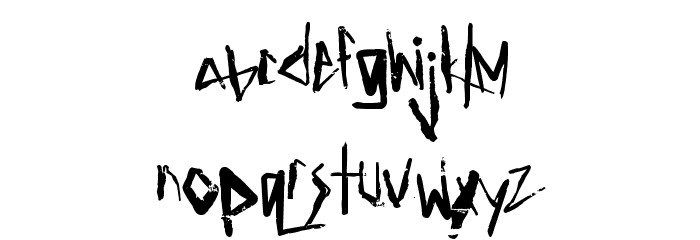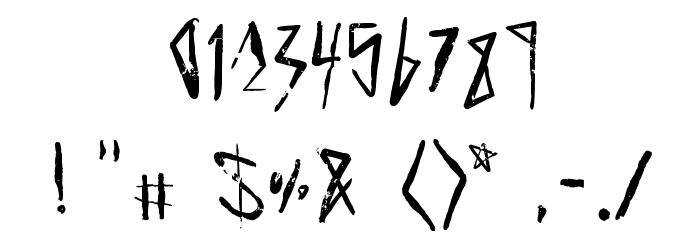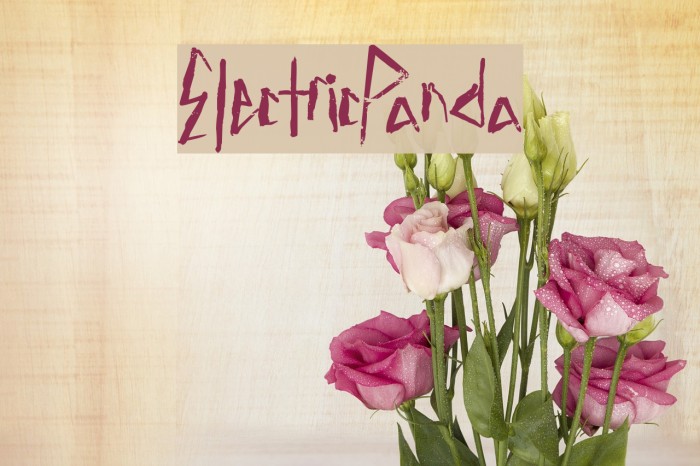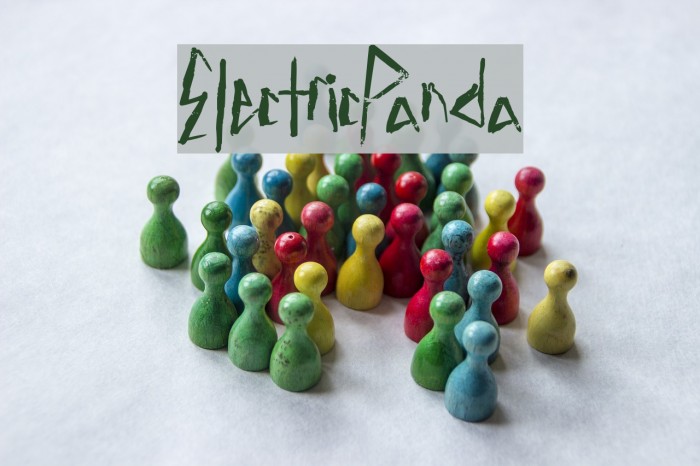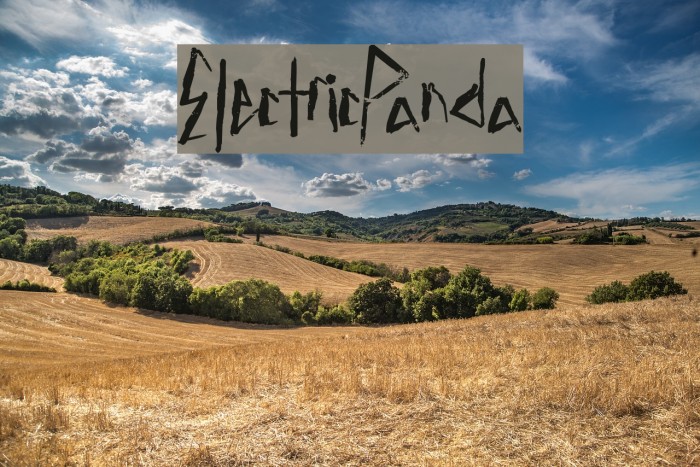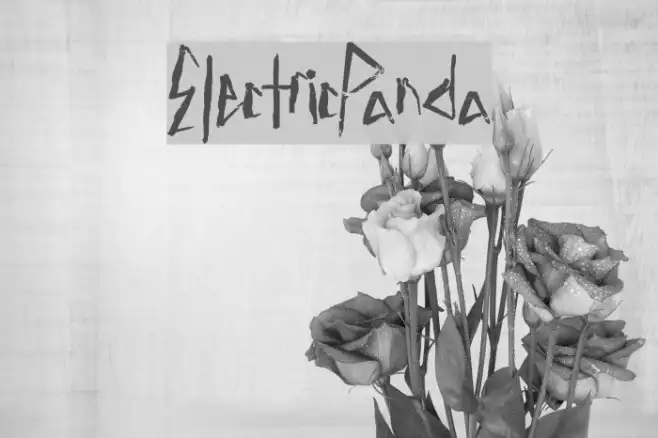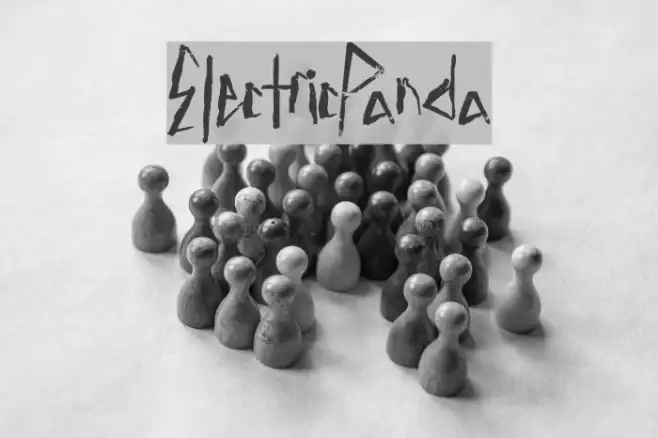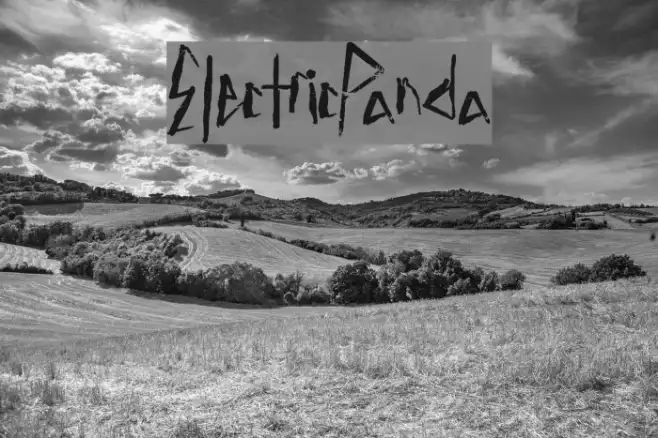
ElectricPanda Font
This font features a highly expressive and chaotic style, reminiscent of hand-drawn graffiti or street art. The letters are jagged and irregular, with a rough, textured appearance that suggests a sense of urgency and raw energy. The uppercase and lowercase characters maintain a consistent level of distortion, creating a cohesive yet unpredictable look. Numbers and special characters follow the same aesthetic, adding to the overall edgy and rebellious vibe. The font's unique design makes it stand out, perfect for projects that require a bold statement.
A chaotic, graffiti-inspired font with jagged, textured characters.
- Proposed Projects: Ideal for album covers, streetwear branding, urban-themed posters, and edgy graphic designs.
- Use Case: Logos, Posters, Album covers